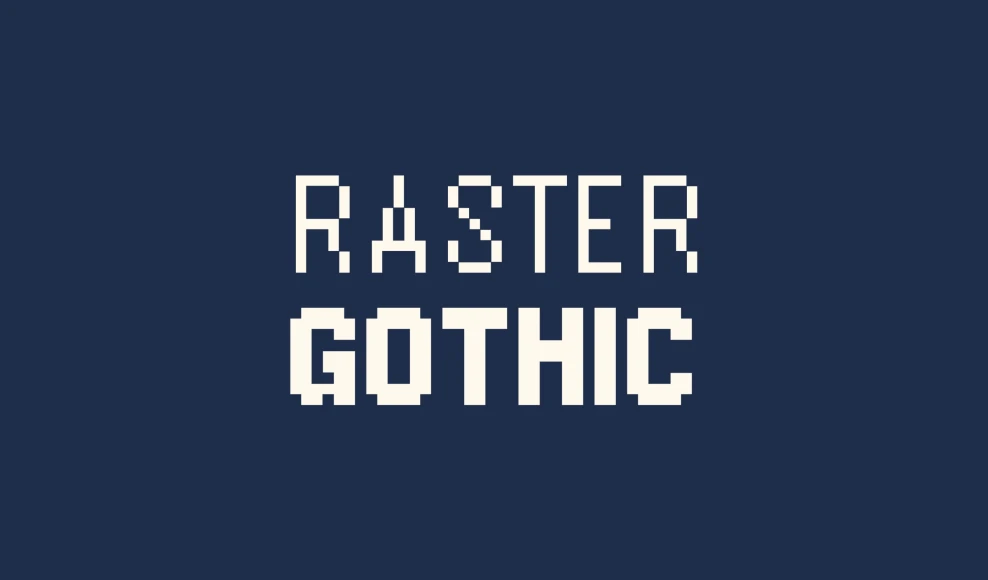
Raster Gothic
By Mark Simonson
Raster Gothic Eighteen Regular
Raster Gothic Eighteen Bold
Raster Gothic Fourteen Regular
Raster Gothic Fourteen Bold
Originally designed as a bitmap font in 1986, and loosely based on Alternate Gothic, Raster Gothic Condensed is a series of outline fonts that retain the aliased look of a bitmap font. The original was retooled for better consistency across sizes and expanded to include two more sizes and bold for all sizes. Small caps can be made by using caps from the next size down. Perfect for on-screen use, including Flash animations, or any time anti-aliasing is not desired.